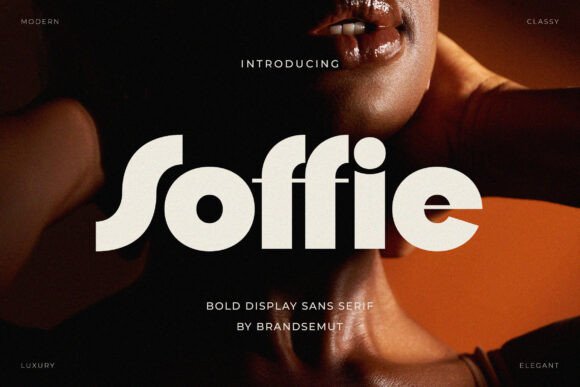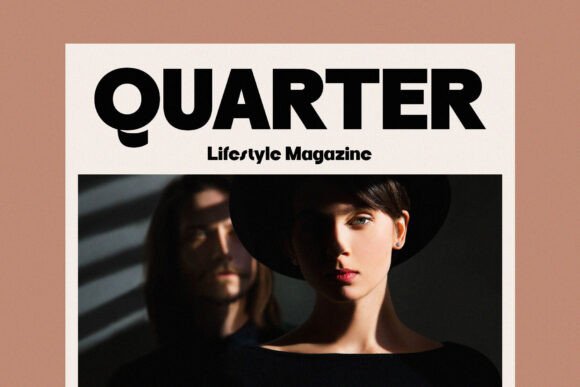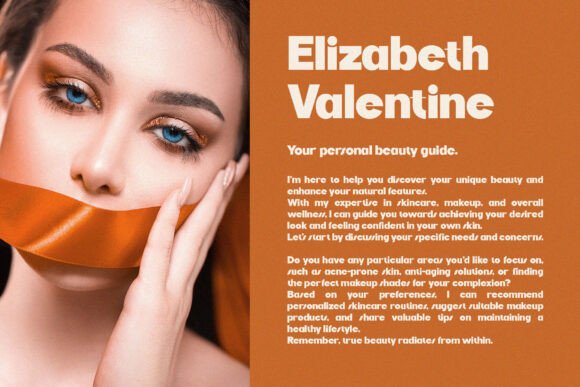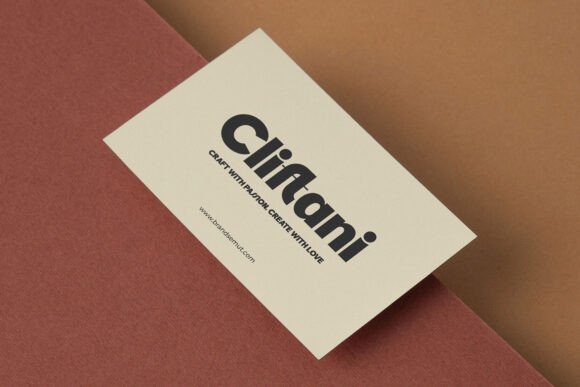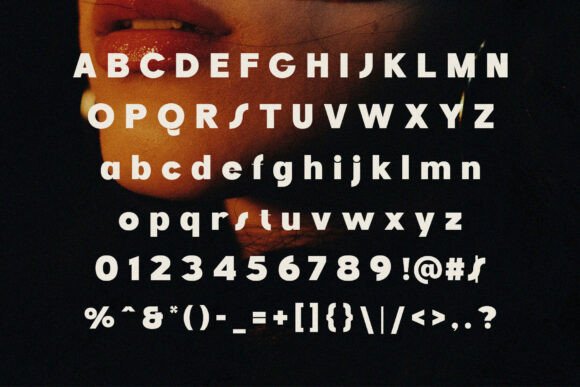
Introducing Soffie Bold Display Sans Serif.
Soffie is a modern and elegant font, best used as a display for headings, logos, branding, magazines, product packaging and invitations. Soffie comes with clean lines and smooth curves, giving any project an extra touch of class.
Soffie Font